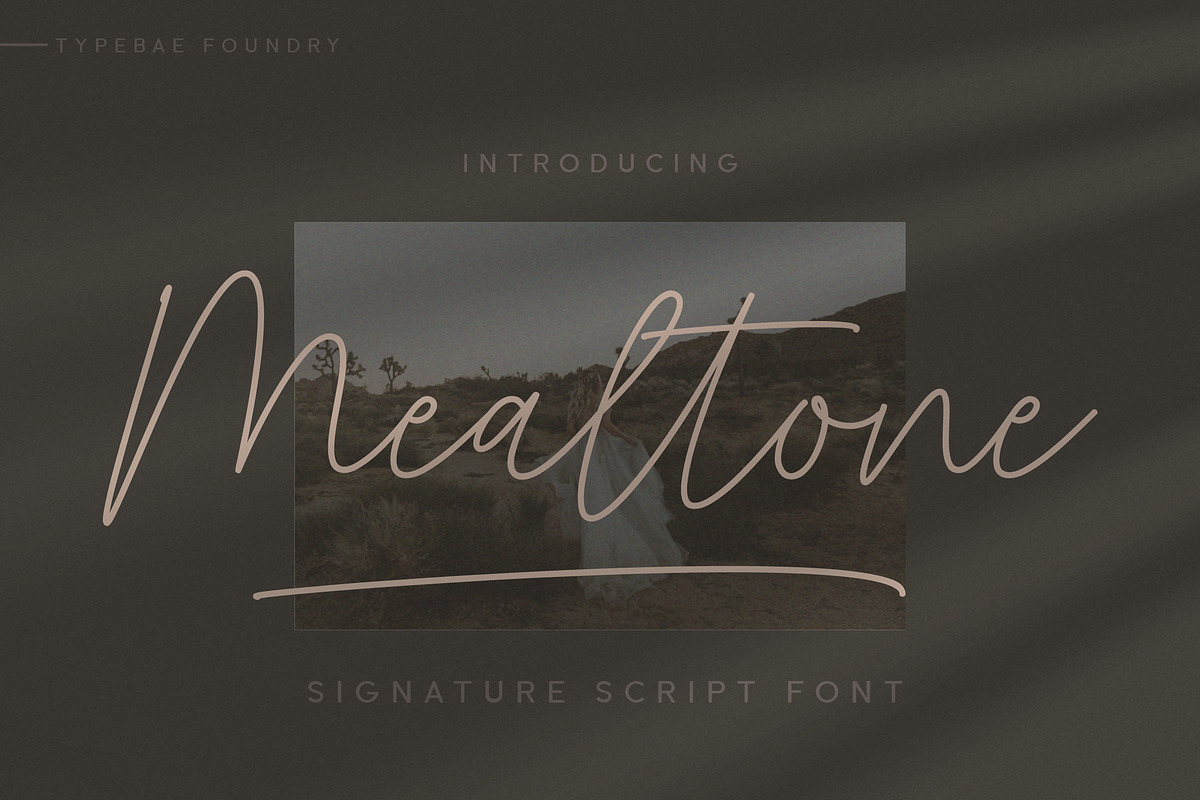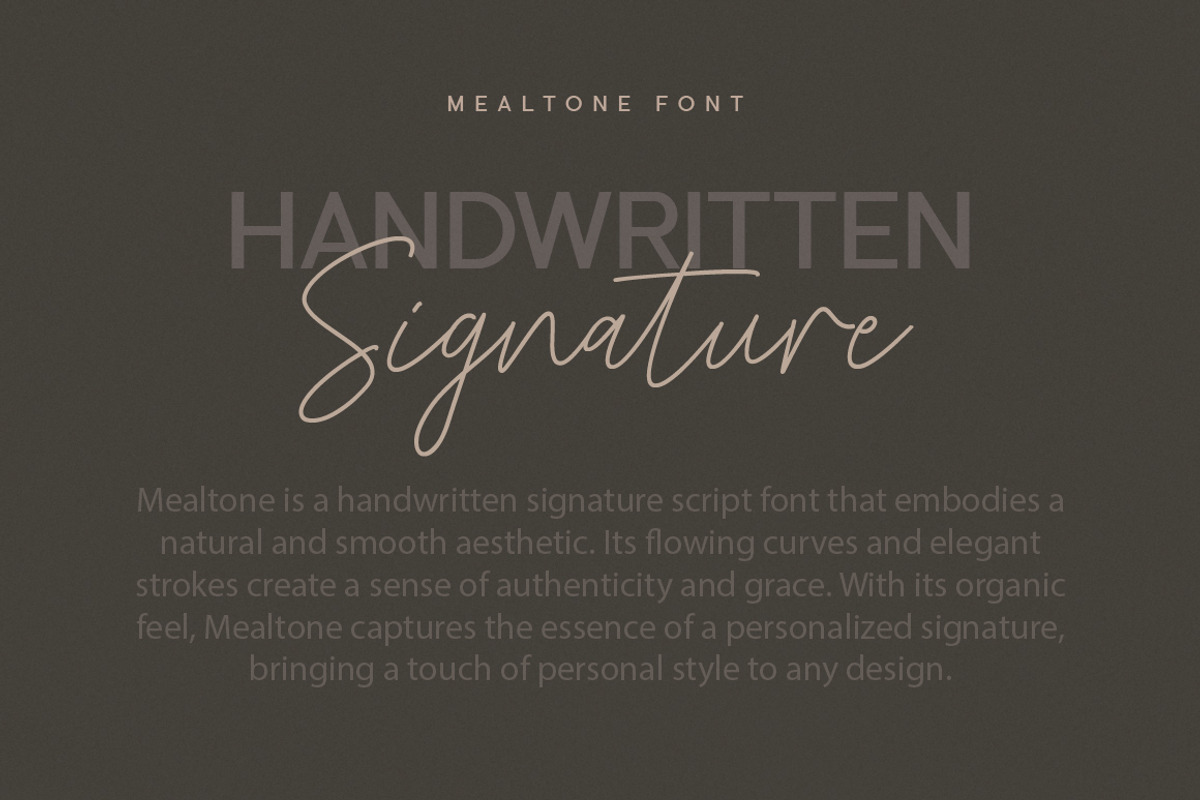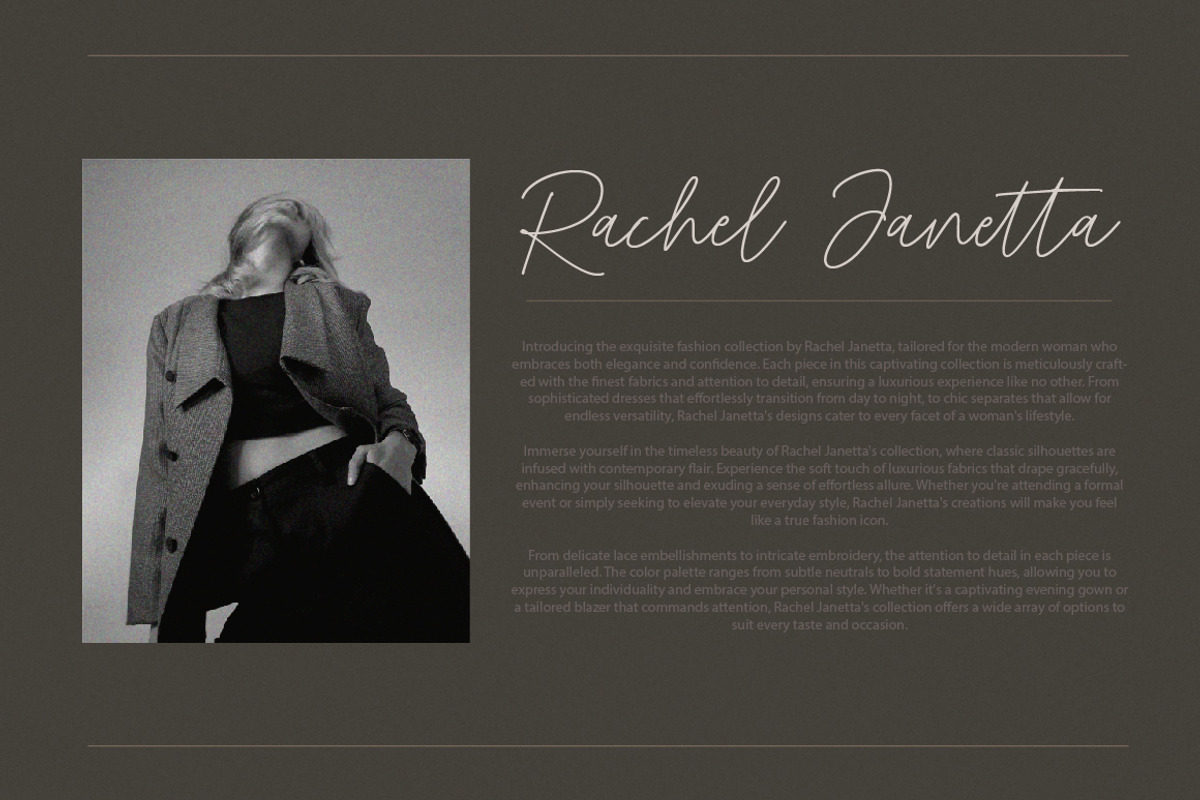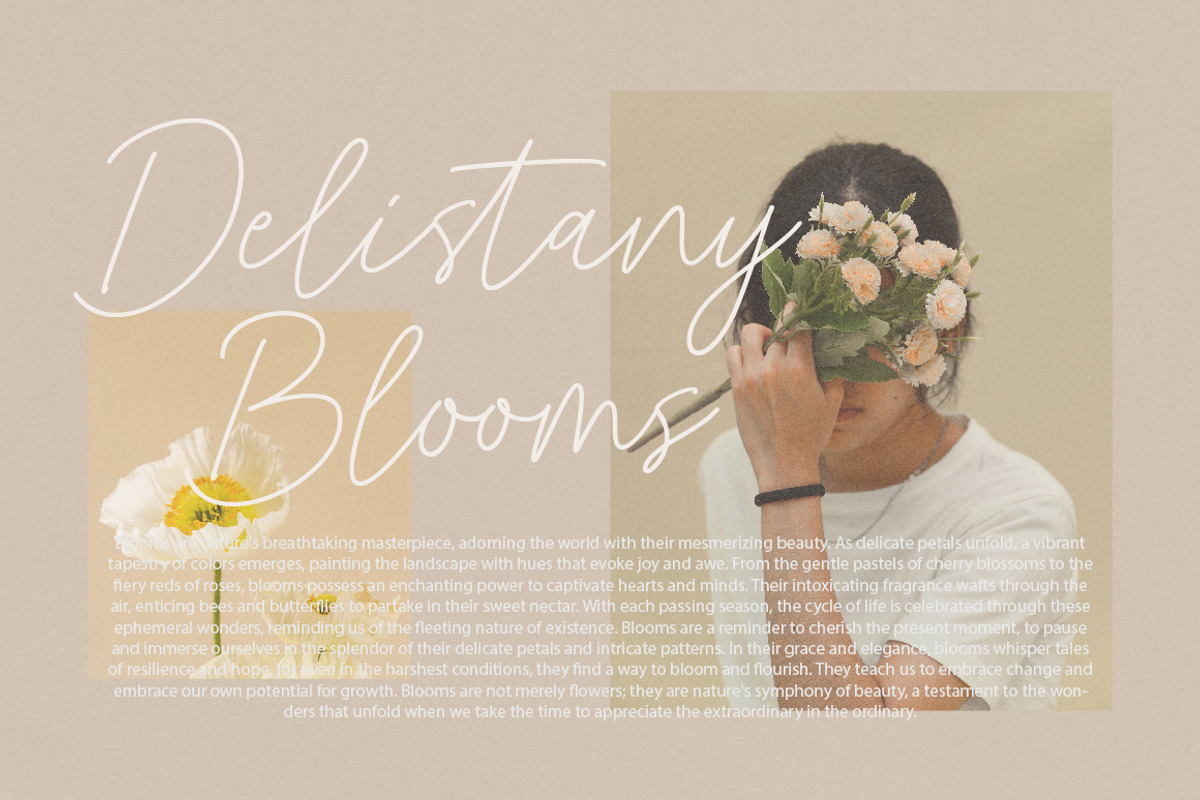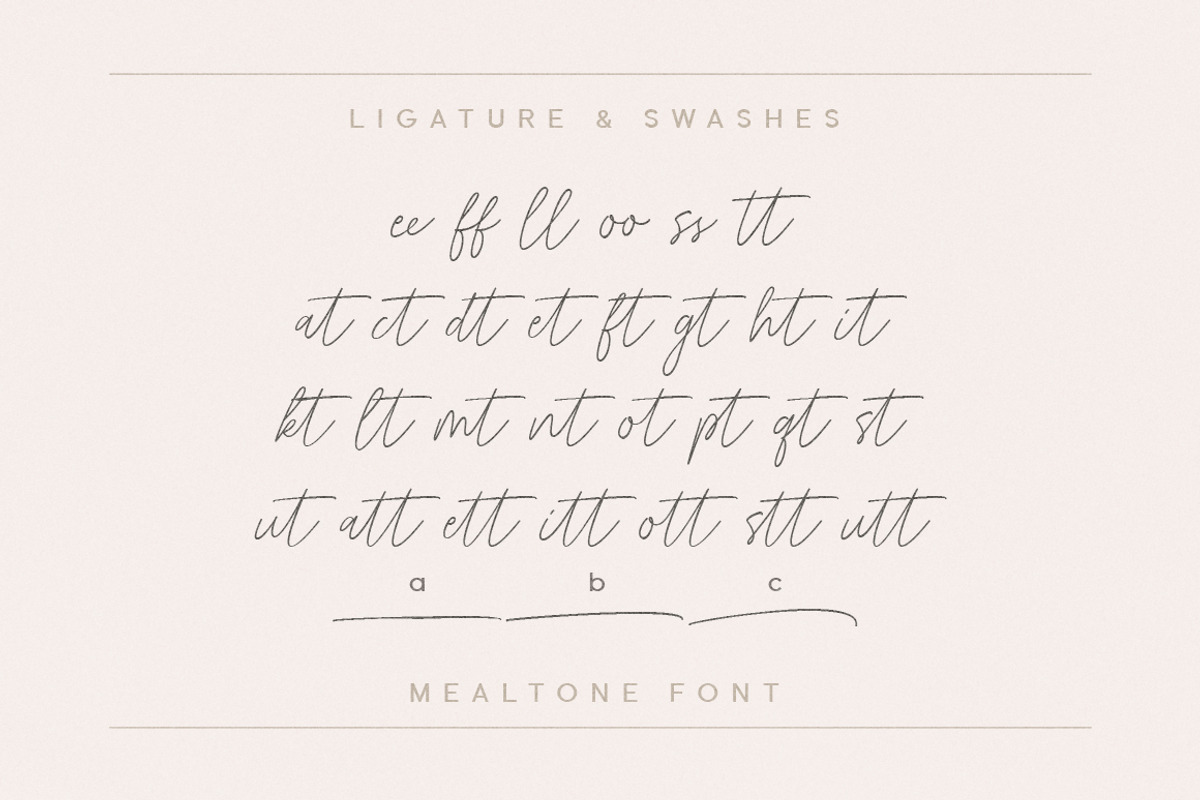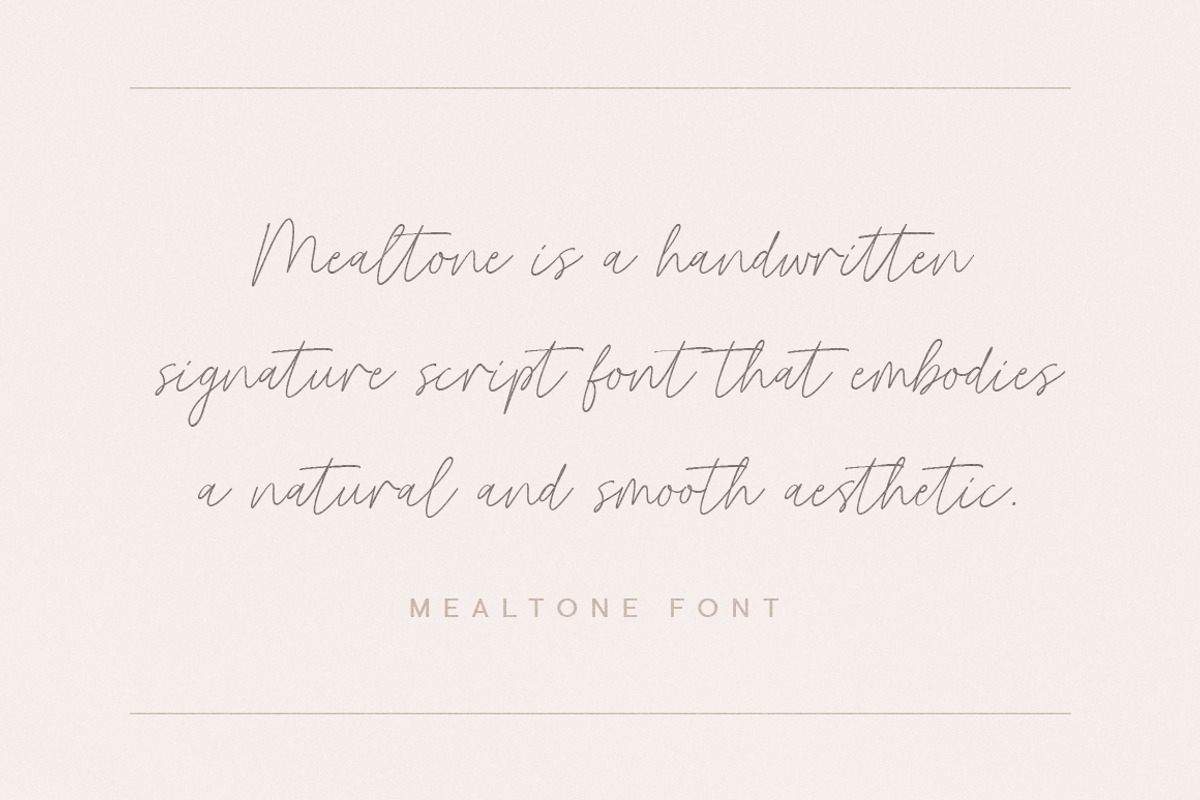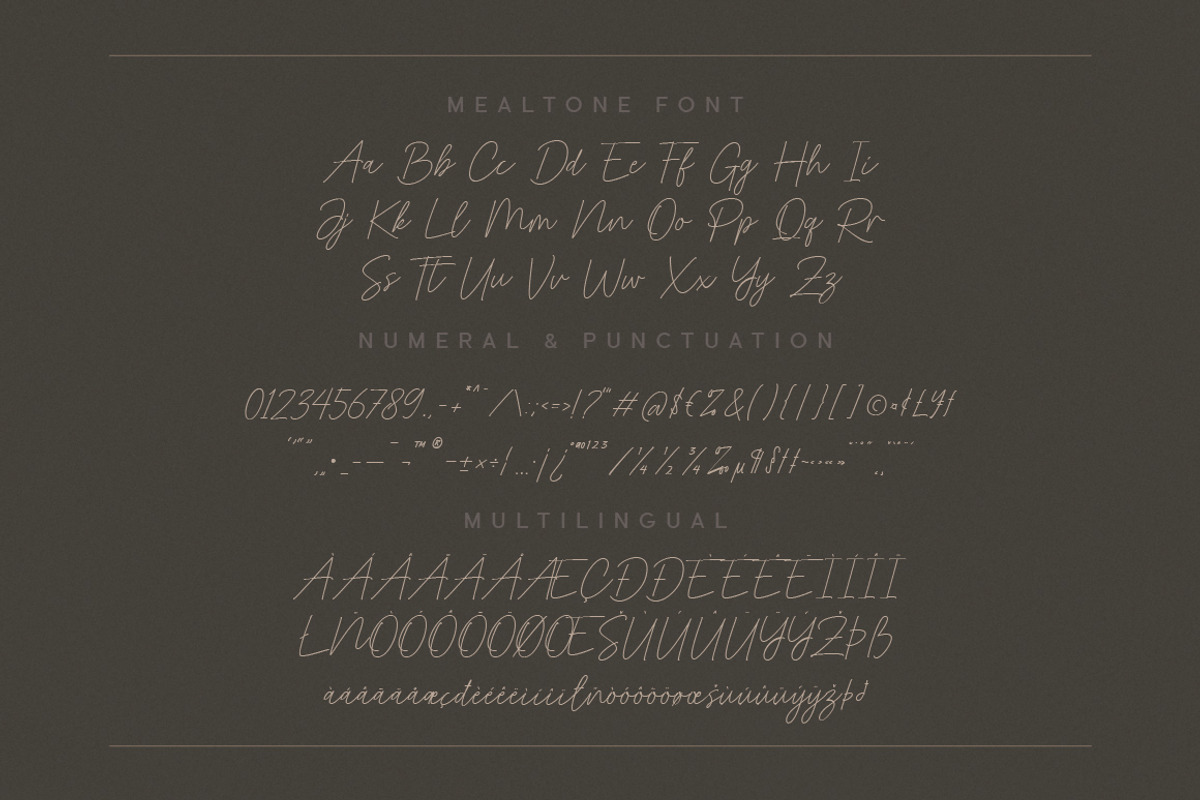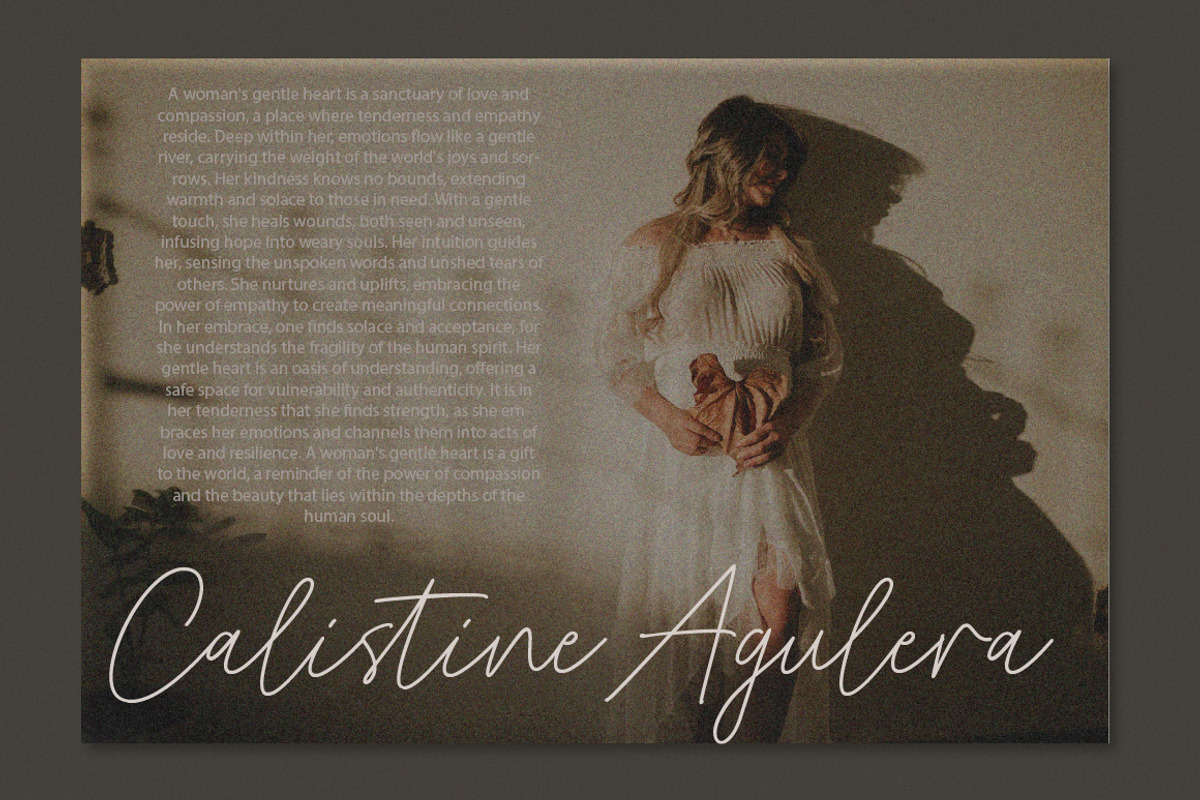
Mealtone Signature Script Font
Mealtone is a handwritten signature script font that embodies a natural and smooth aesthetic. Its flowing curves and elegant strokes create a sense of authenticity and grace. With its organic feel, Mealtone captures the essence of a personalized signature, bringing a touch of personal style to any design.
- Standard alphabet and punctuation
- Ligature and swashes feature
- Multilingual Support: Afrikaans, Basque, Breton, Catalan, Danish, Dutch, English, Finnish, French, Gaelic (Irish, Scots), German, Icelandic, Indonesian, Irish, Italian, Norwegian, Portuguese, Saami (Southern), Spanish, Swahili, Swedish.